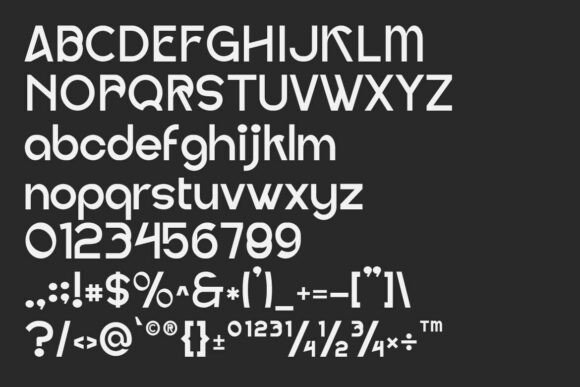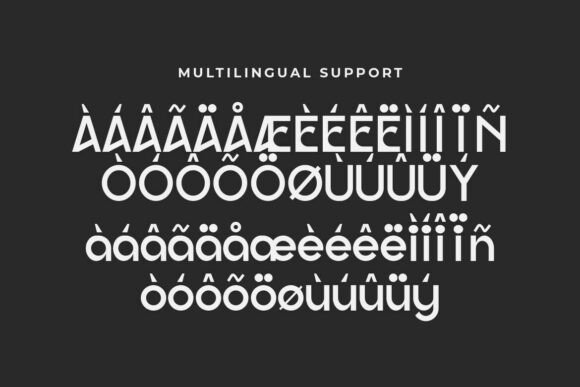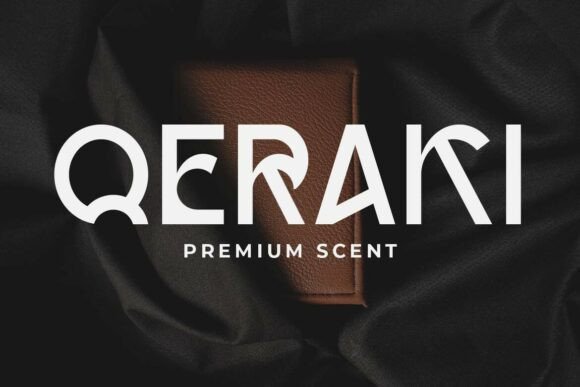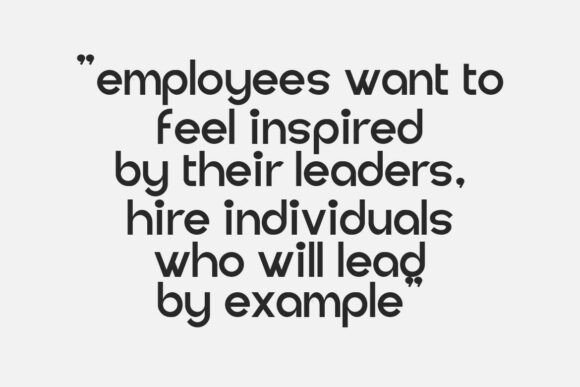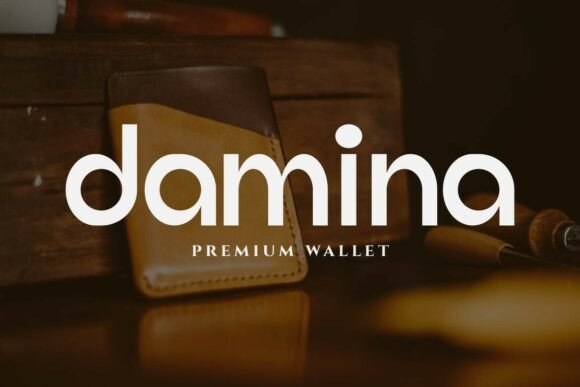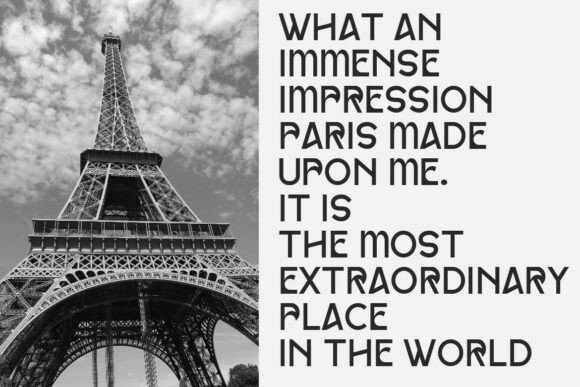
Introduction to Kerinant Font Font
Fonts play a crucial role in design, and the Kerinant Font font is a typeface that brings both character and versatility to any project. Whether you’re working on a branding project, a website, or a print design, the Kerinant Font font offers a unique style that can elevate your work.
Kerinant is a stylish and innovative sans serif font crafted to bring originality and strength to your designs.
With its clean structure, distinctive letterforms, and modern attitude, Kerinant is perfect for branding, logo design, packaging, posters, editorial layouts, and digital content .
Key Features of Kerinant Font Font
Why Choose Kerinant Font Font?
The Kerinant Font font is more than just a typeface – it’s a design tool that helps you communicate your message with style and clarity. Its unique character set and versatile design make it suitable for a wide range of applications, from elegant invitations to bold headlines.
With its carefully crafted letterforms and balanced proportions, the Kerinant Font font ensures readability and visual appeal across all mediums.
What makes Kerinant Font font special?
The Kerinant Font font stands out with its unique design, exceptional readability, and versatility across various design applications.